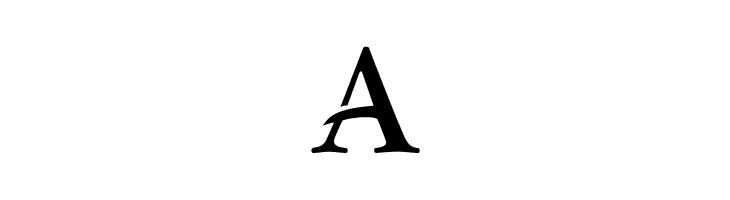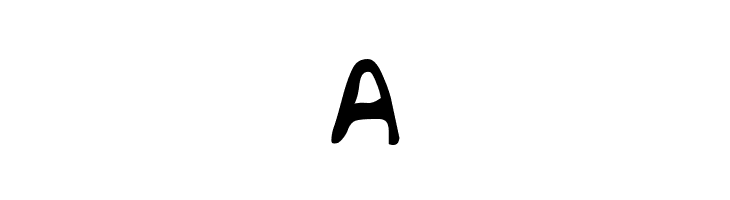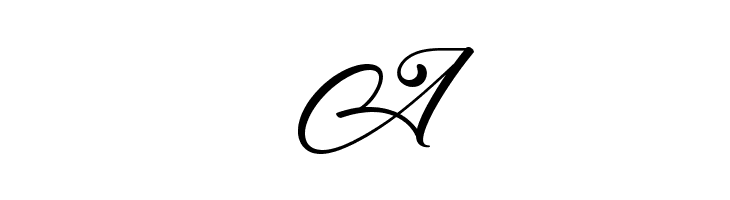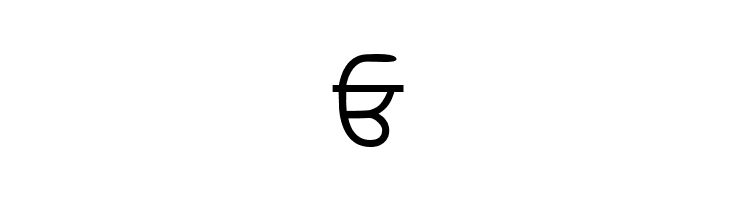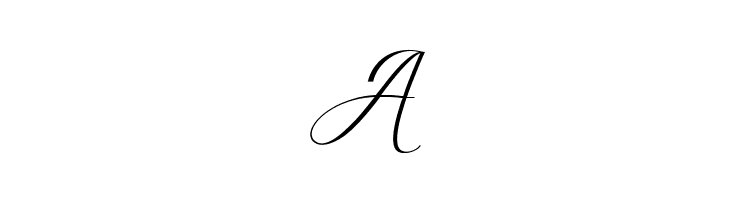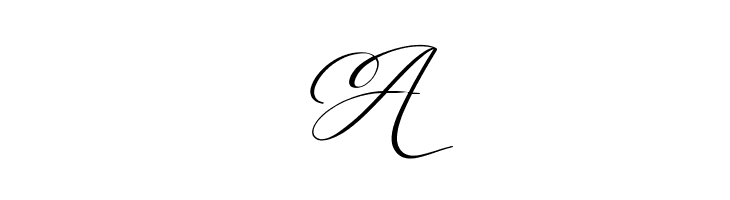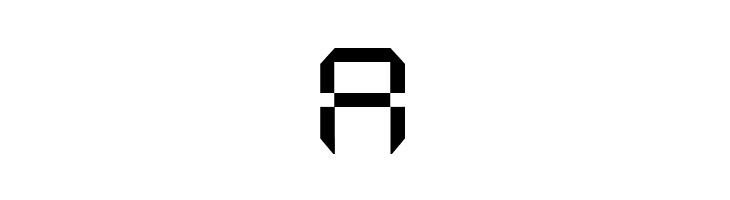
• akaFrivolity
A whimsical and elegant script font with playful swirls and loops.
• Akagami
A playful, whimsical script font with smooth, flowing lines and a hand-drawn appearance.
• Akagami
A playful, handwritten script font with a whimsical and elegant style.
• akaHoggle
• akaIndic
A bold, geometric font with tribal and artistic elements.
• Akalai
• Akanta
A modern, geometric font with rounded edges and consistent stroke width.
• akaPosse
A bold, gothic-inspired font with sharp serifs and thick strokes.
• akaPotsley
A decorative and whimsical font with intricate swirls and curls.
• Akar Rumput
A bold, hand-drawn font with a brush-like texture and dynamic style.
• Akar Rumput
A bold, hand-drawn font with an energetic and graffiti-like style.
• Akashi
A bold, geometric font with a modern and futuristic design.
• Akashi Regular
A bold, geometric font with a modern and technical style.
• AkashiMF
A modern-vintage font with unique curves and angular details.
• Akasic Medium
A bold, dynamic font with sharp, angular edges and unique cutouts.
• Akasic Medium
A bold, modern font with angular cutouts and a dynamic style.
• Akasic Medium
A bold and dynamic font with sharp angles and smooth curves.
• Akasic Medium Italic
A bold, italic font with angular, dynamic characters.
• Akasic Medium Italic
A bold, italic font with sharp, angular cuts and a modern, energetic style.
• Akasic Medium Italic
A bold, italic font with angular, modern design elements.
• Akastar - Personal Use